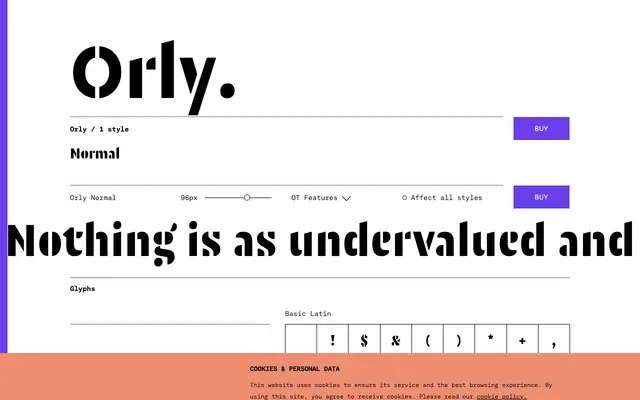
Orly
A single-weight stencil face by Pierre Pané-Farré, grown from the discipline of cutting shapes by hand with scissors and knives.
Pierre Pané-Farré's first published typeface, Orly Stencil was originally released in 2012 as part of the OurType Stencil Series, timed to coincide with the exhibition 'Between Writing & Type: the Stencil Letter' in Antwerp. Its letterforms are built from a spare vocabulary of shapes, deliberately shedding complex curves and fine details in the way that hand-cut stencils demand. The result is a tight, energetic sans structure that carries the physical logic of its making into every glyph.
Orly is a stencil typeface derived from the craft of hand-cutting paper or card stencils with simple tools, producing a geometric sans structure broken by stencil gaps. The stencil construction and display-oriented character place it firmly in the display category with a stencil subcategory.